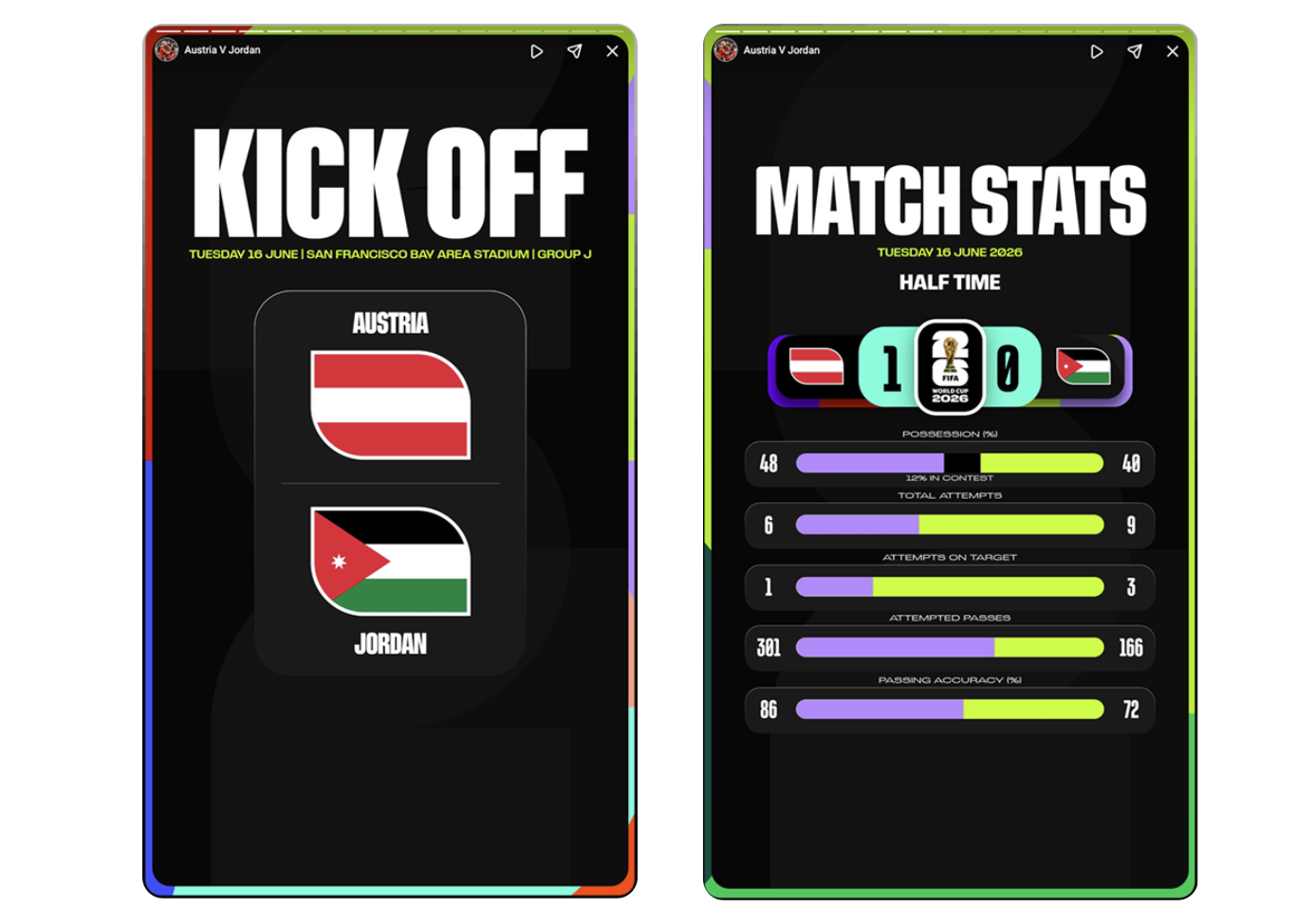
Does the 2026 World Cup font have a problem?
With the FIFA World Cup 2026 well underway in Canada, Mexico and the US, you might have noticed that this year's tournament looks quite different from previous editions. As well as the structural differences like the so-called hydration breaks and, still to come, the half-time show during the final, the World Cup branding looks sleeker and more polished than ever.
There's the World Cup 2026 logo, which introduces a new standardised design approach that FIFA intends to use as the basis for a permanent brand identity, mirroring the move we've seen in the Super Bowls logos in the US in an effort to create a more consistently recognisable brand from one tournament to the next.
Another big part of the identity for this year's tournament is the typography design. A bespoke ultra-condensed typeface has been designed for maximum impact across a wide range of applications. But is the World Cup font a winner, or does it miss the goal? (also see our pick of the best World Cup 2026 kit designs and the best World Cup 2026 adverts).
The custom World Cup font is FWC26, which is credited to Alistair McCready at the type foundry Monolith. It's a striking typeface that gives the tournament a consistent identity with a vibrant and contemporary edge rather than an overly institutional feel.
The typeface forms part of a broader identity that FIFA calls “One For All”, reflecting the three-nation hosting arrangement, and it feels neutral enough to fulfill that aim while still exuding a lot of personality.
The heavy, tightly-packed letters formed with clean geometric shapes allows big words to be crammed into small spaces, from jerseys to signage, while making a big enough impact to command attention at a distance and cut through the noise in huge stadiums for millions of television viewers.
But does the World Cup font work for every use? some designers have a quibble with the choice of type in some applications and argue that FIFA needs a variant to make it work.
Oliver Schöndorfer, a typography consultant and UI designer from Austria, suggests the font makes it hard to read match stats and labels when viewed at small sizes or on low-resolution screens.
The main bone of contention is how it looks on the scoreboard in the top left corner of broadcasts. Oliver notes that in this use, the font is combined with Open Sans, which is used for the timer and the scores, while FIFA retains its custom typeface for the country abbreviations.
"Obviously, someone found out that it would have been too challenging on a TV screen," Oliver suggests, but he feels that the combination of two fonts doesn't entirely solve the problem. The letters can look tight and squarish, with their inner shapes tending to disappear, making the forms harder to distinguish from one another, he says.
"Tricodes for countries are not always that obvious (I learned that RSA stands for South Africa)," he notes. "Flags next to it help, but not everyone knows them either. Plus, this will be seen on a variety of screens and resolutions, so it should be as legible as possible."
How could it have been done differently? On his Pimp My Type blog, Oliver shows how it could have been worse if FIFA had stuck with FWC26 for the entire scoreboard design, with zeros and eights becoming too hard to tell apart, He thinks the ideal solution would have been to create a wider, less bold variant of FWC26 that would make it more legible at small sizes without having to resort to losing its character by using an alternative.
"It’s not that I don’t like the FIFA typeface, I think it’s a good choice for branding, but there should be a companion version for smaller sizes," Oliver says.
The Instagram post below shows the scoreboard compared to those from previous World Cup tournaments.
What do you think of the World Cup typeface and how the scoreboard design compares with previous ones? Can you think of a better solution?